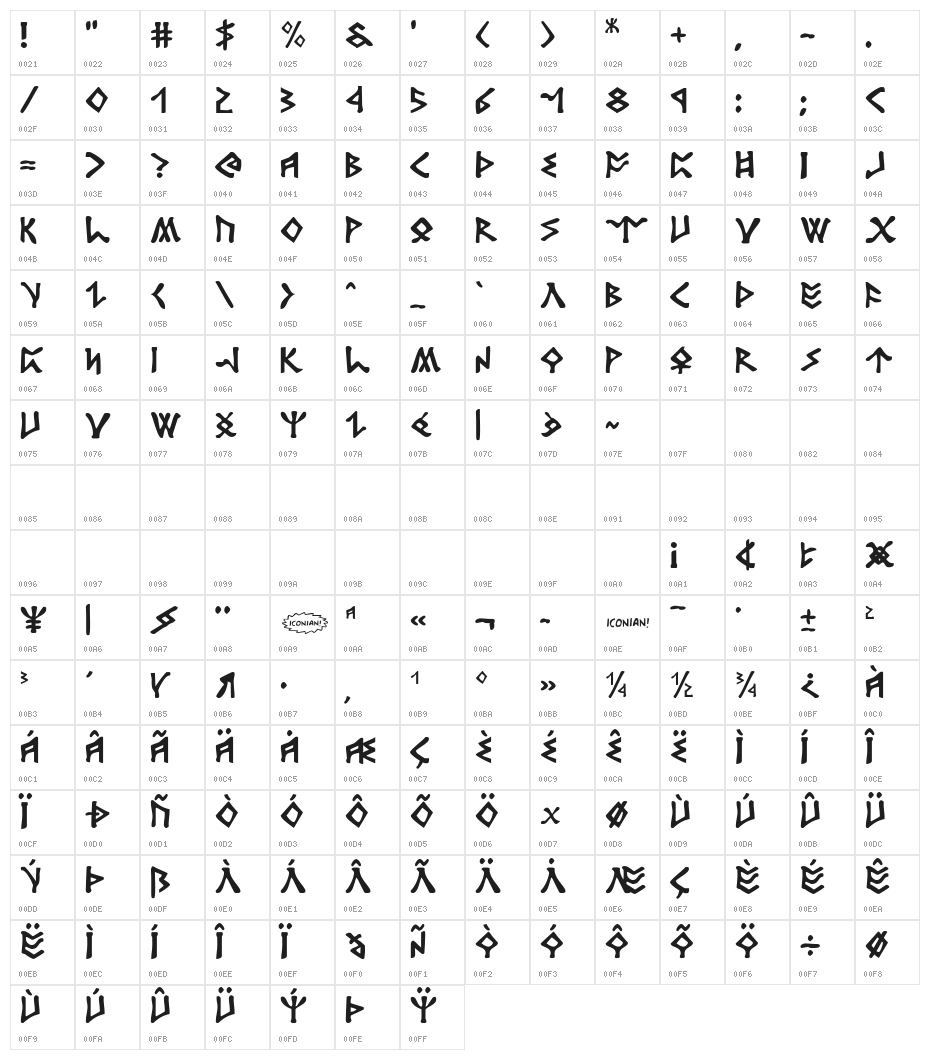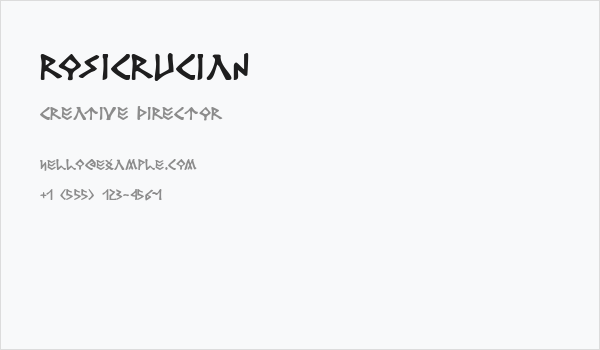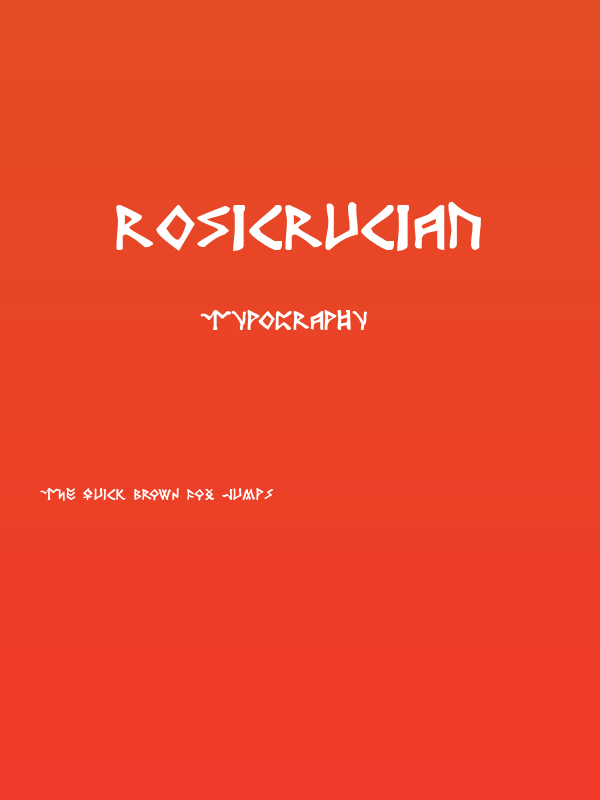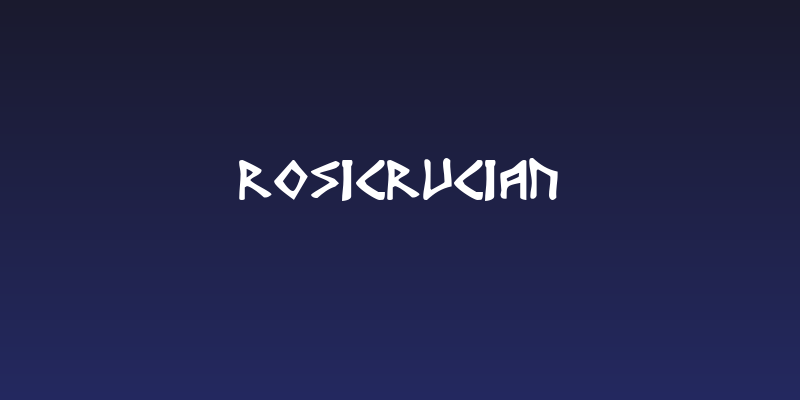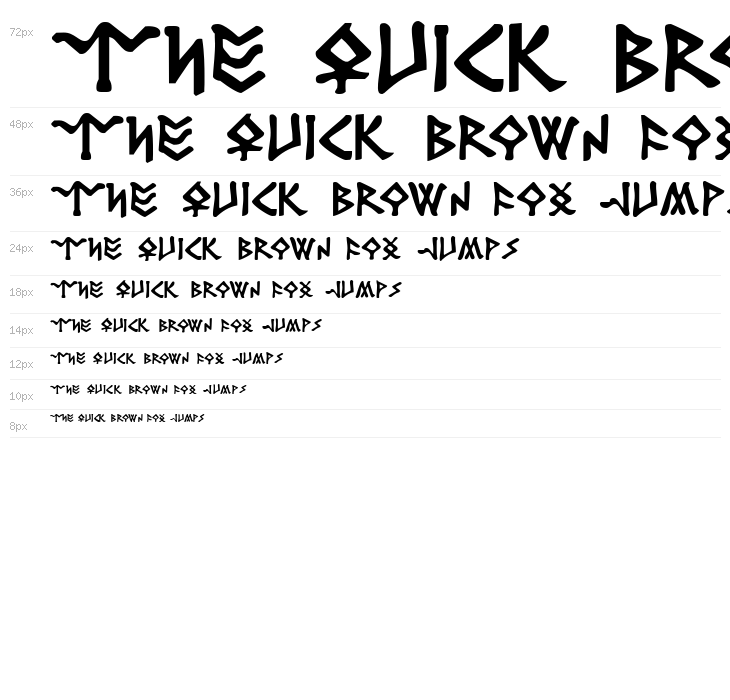
Rosicrucian Font
Rosicrucian Description
This font features a unique, mystical design with angular and geometric shapes. The characters have a distinct, almost runic appearance, with sharp edges and a bold presence. The uppercase and lowercase letters maintain a consistent style, emphasizing a sense of mystery and ancient symbolism. Numbers and special characters follow the same aesthetic, making the font cohesive and visually striking. Its bold strokes and unconventional forms make it stand out, suitable for projects that require an enigmatic or historical feel.
Overall StyleMystical, Ancient, Decorative
Proposed ProjectsIdeal for fantasy book covers, mystical-themed posters, video game titles, and historical or esoteric branding.